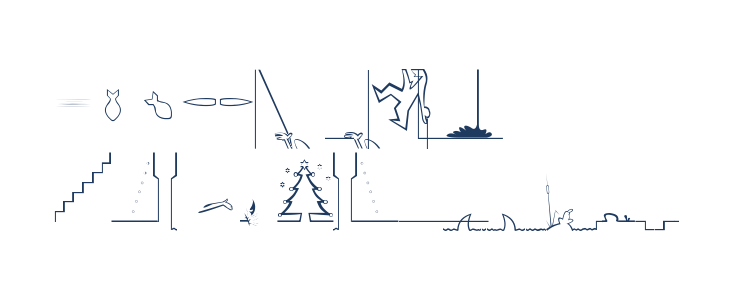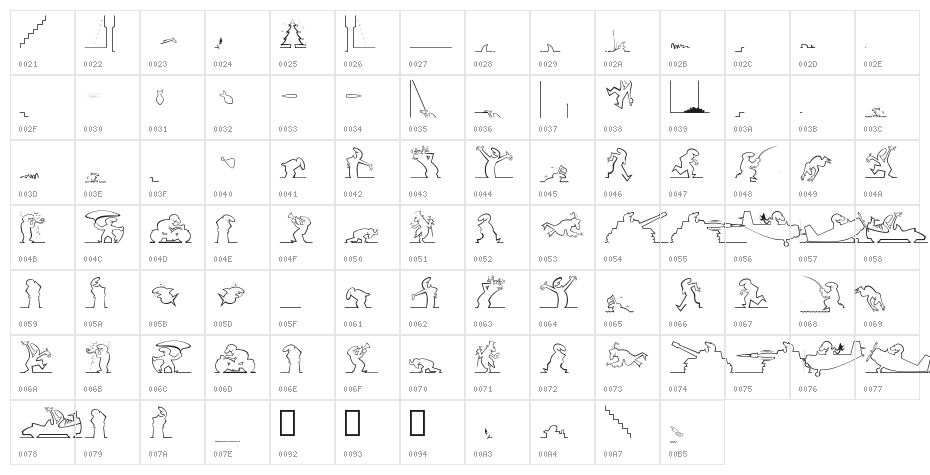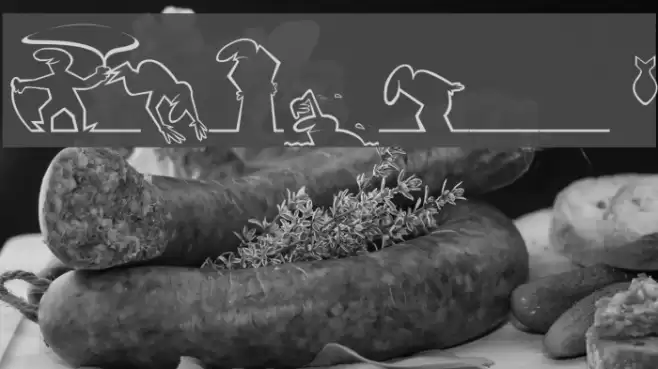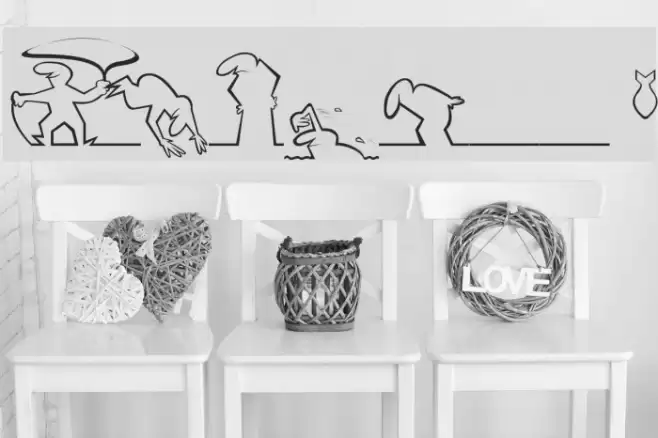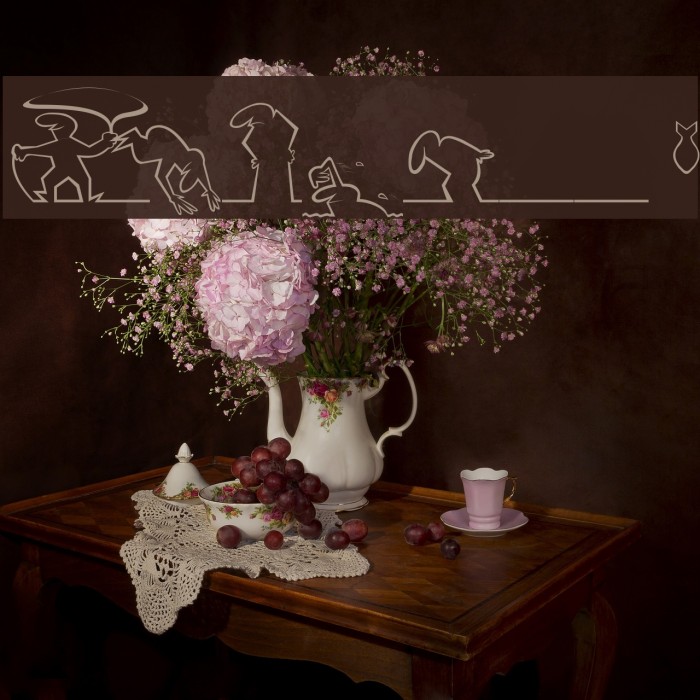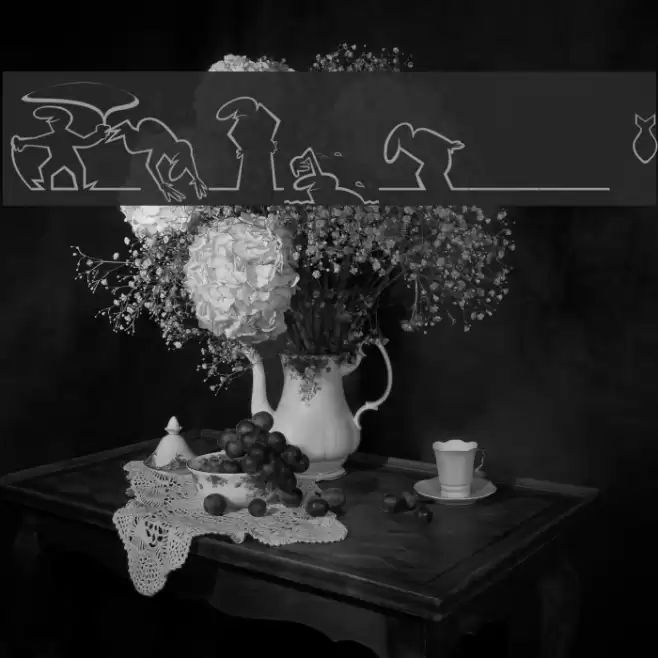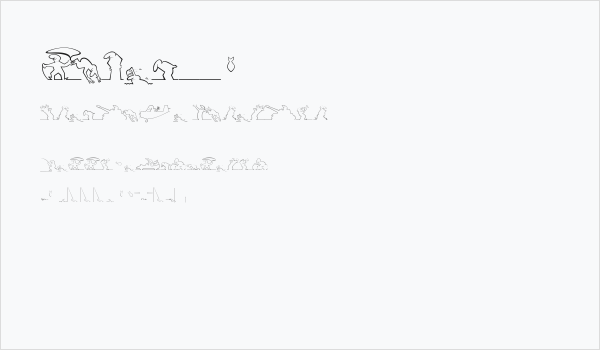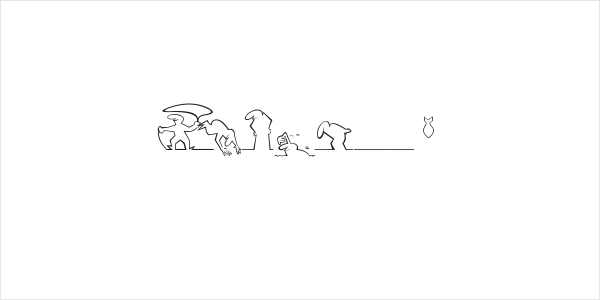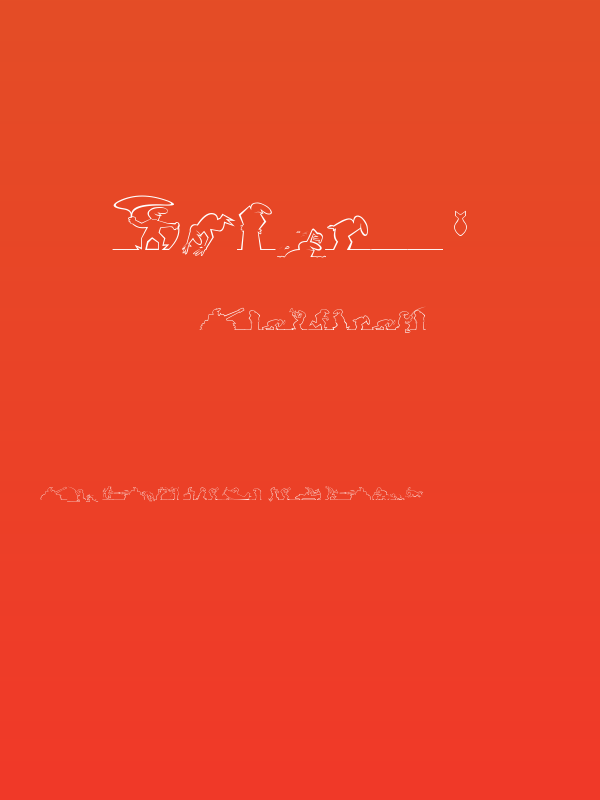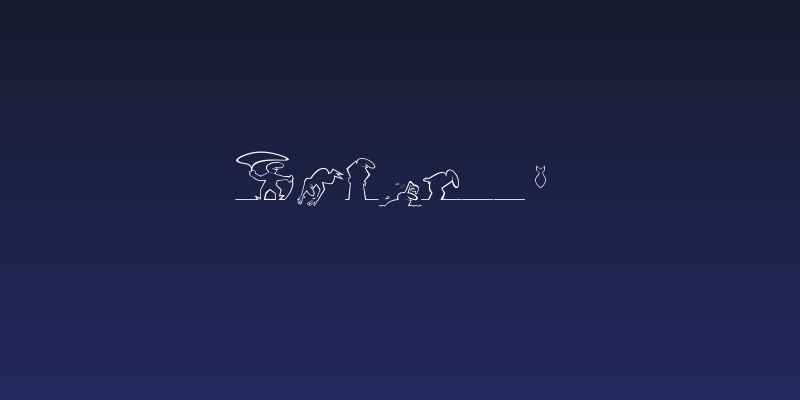
linea__1 Font
A highly decorative and illustrative font where each character is represented by a unique line-art drawing depicting dynamic scenes or figures, blending letterforms with pictorial storytelling elements.
Overall StyleDecorative, Artistic, Whimsical